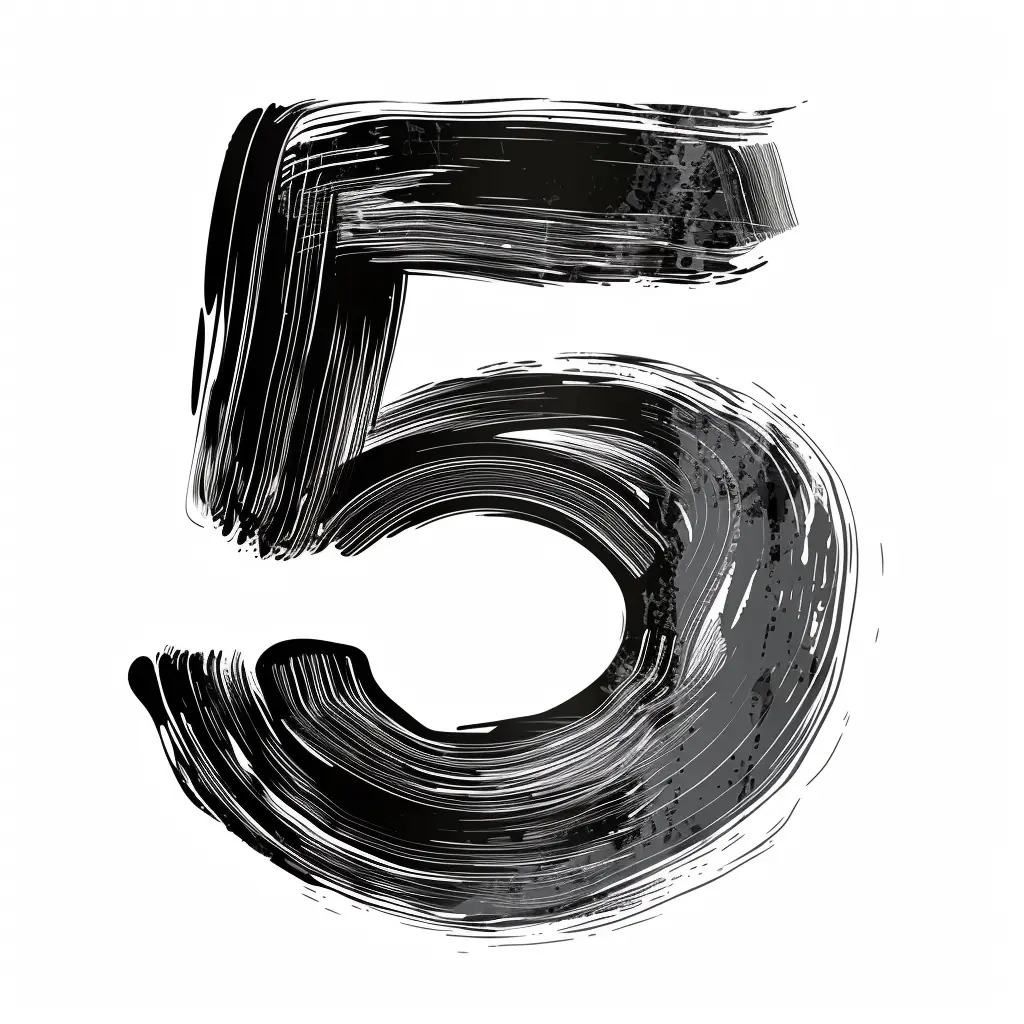
The image features a stylized representation of the number "5" rendered in a bold, brushstroke-inspired design. The numeral is depicted in varying shades of black and gray, with textured, layered strokes that create a dynamic, artistic effect against a plain white background. The visual elements emphasize a hand-painted, expressive aesthetic, blending thick, sweeping lines and subtle grunge details for a striking, modern look.